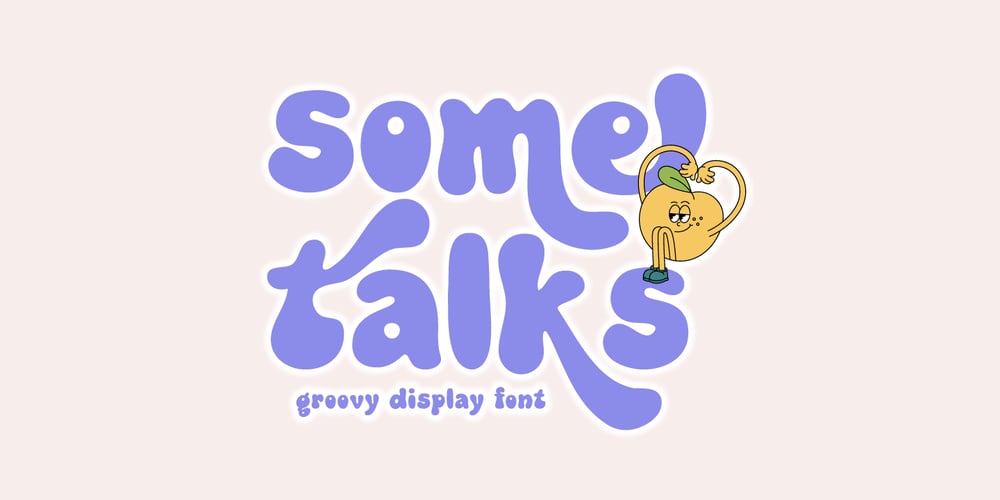
Some Talks Font Family was designed by Prio Nurokhim Aji and published by Prioritype. Some Talks contains 1 styles and family package options. Some Talks – Groovy Display Font.Introducing a very fun groovy font. Equipped with alternates and ligatures to enrich your exploration. Suitable for branding design, logo, merchandise etc. Features: Uppercase, Lowercase, Numeral, Punctuation, Multilingual & Ligatures. Multilingual contained: Afrikaans, Albanian, Asu, Basque, Bemba, Bena, Breton, Catalan, Chiga, Cornish, Danish, Dutch, English, Estonian, Filipino, Finnish, French, Friulian, Galician, German, Gusii, Indonesian, Irish, Italian, Kabuverdianu, Kalenjin, Kinyarwanda, Luo, Luxembourgish, Luyia, Machame, Makhuwa-Meetto, Makonde, Malagasy, Manx, Morisyen, North Ndebele, Norwegian Bokmål, Norwegian Nynorsk, Nyankole, Oromo, Portuguese, Quechua, Romansh, Rombo, Rundi, Rwa, Samburu, Sango, Sangu, Scottish Gaelic, Sena, Shambala, Shona, Soga, Somali, Spanish, Swahili, Swedish, Swiss German, Taita, Teso, Uzbek (Latin), Volapük, Vunjo, Zulu. Thanks!